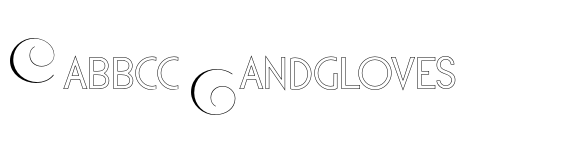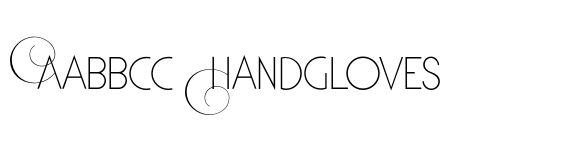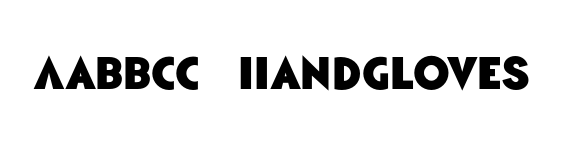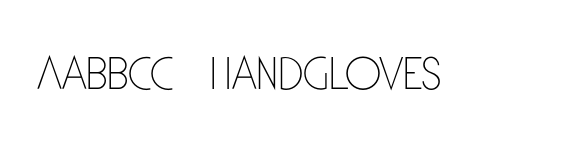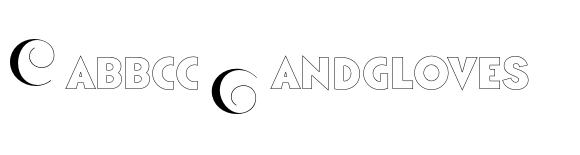
Italiano Fushion Color
Die Schriftfamilie Italiano Fushion Color wurde von Antonio Vignali entworfen und von RM&WD veröffentlicht. Italiano Fushion Color enthält 9 Stile und Familienpaketoptionen. Mehr über diese Familie
Italiano Fushion is part of an expanding project on which we have been working for several years and is the colors ersion of ITALIANO FUSHION. Starts from the study of the great Futurist adventure of the early 1900s by great artists such as DEPERO and MARINETTI, who twisted the world of typography with shapes and colors. Italian Fushion is made up of almost 2,000 glyphs for each weight and in addition to hundreds of alternatives mainly, such as initials and endings of each word but also different alternatives for the letters I, J, Y. Thanks to the characteristics of Open Type, you can change them in automatic many of the alternatives, use it as a simple text font by changing only the I's and J's that have the typical capital dot, and giving the text a more fun breath to the composition. Italiano Fushion is suitable for large texts and to get the most out of it it is compulsory to transform the text into UPPERCASE text using the tabs of graphic applications such as Illustrator, or activate the Alternavive tabs and the various options of SS. You just need do a sandwitch between the 1 ( on the top ) and the 2 ( on the bottom ), choose the 2 different color and you hae finished. by transforming them into traces you can enrich the interaction between the two levels with nuances of pleasure.
If you would like to be above layer 2, you can make the text parts transparent without swashes.